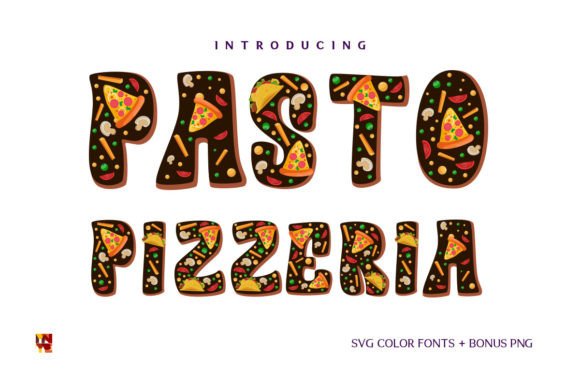
Prepare yourself for a culinary journey with Pasto Pizzeria Font—the font of choice for pizza enthusiasts. Adorned with vibrant hues and delectable patterns, this color display font will tantalize your senses and take your designs to new heights of scrumptiousness.
Embark on a Flavorful Typographic Adventure:
Savor the authentic charm of a traditional pizzeria with Pasto Pizzeria Font's meticulously crafted characters. Each letter is infused with the essence of pizza—the cheesy goodness, the tantalizing aroma, and the crispy crust. Step into a world of culinary delight where fonts and flavors dance together in perfect harmony.
Ignite Your Creativity with Pizza-Themed Designs:
Whether you're a pizzaiolo with a passion for design or a designer seeking inspiration, Pasto Pizzeria Font is your secret ingredient for creating mouthwatering designs. Craft pizza menus that sizzle with flavor, design posters that capture the essence of pizza night, or create social media posts that will have your followers craving a slice. The possibilities are endless, just like the combinations of toppings on a pizza.
A Font That Speaks the Language of Pizza:
Pasto Pizzeria Font is more than just a collection of letters; it's a culinary masterpiece that captures the spirit of pizza in every curve and stroke. Engage with your audience on a deeper level by using a font that speaks their language—the language of pizza. Create designs that resonate, connect, and leave a lasting impression, just like that first bite of a perfectly cooked pizza.
Experience the Sizzle of Pasto Pizzeria Font Today:
Don't settle for ordinary fonts that lack flavor. Dive into the world of Pasto Pizzeria Font and let your designs sizzle with creativity. Its unique combination of colors and pizza-inspired patterns will transform your projects into culinary masterpieces. Add Pasto Pizzeria Font to your collection today and taste the difference it makes. It's the perfect ingredient for any design project that demands a touch of pizzazz and a whole lot of flavor.